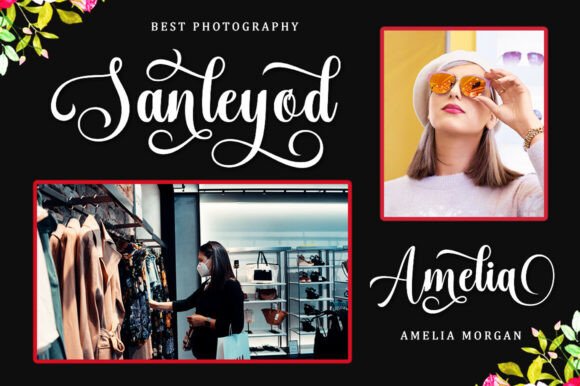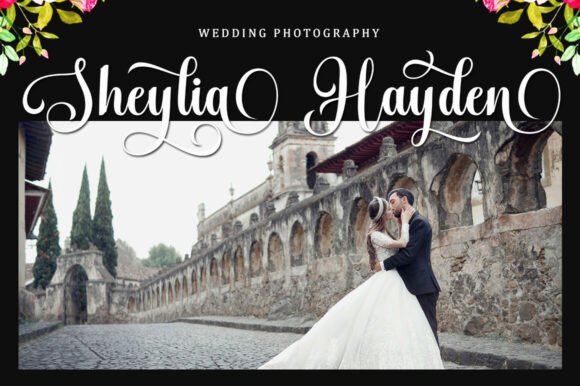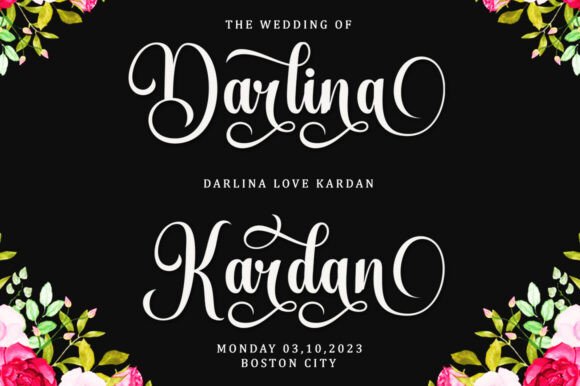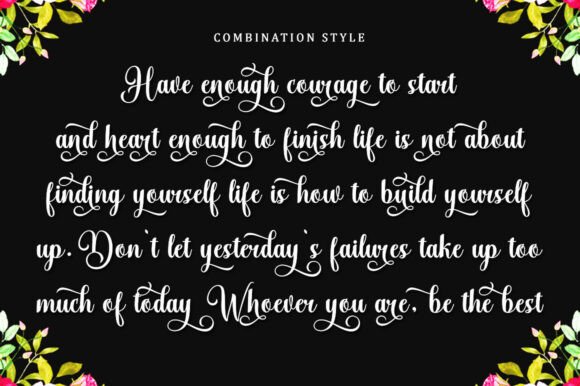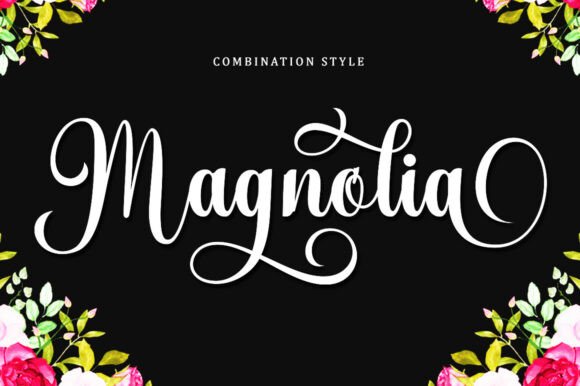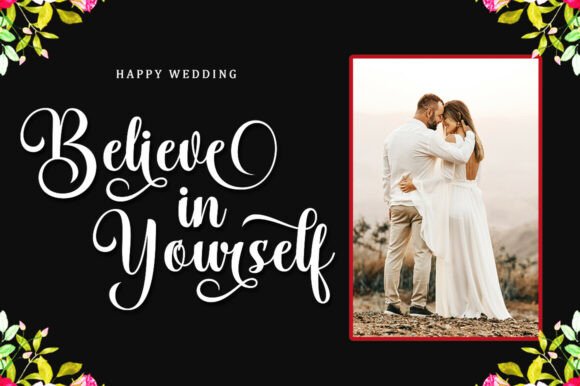
Discover the Timeless Elegance of Baileyda Font
Have you ever found yourself staring at a blank page, desperately searching for the perfect font to bring your design to life? That’s where the magic happens – when a single typeface can transport your project from ordinary to extraordinary. For designers, the quest for the perfect font is a never-ending journey, and we’re excited to introduce you to the latest addition that’s sure to captivate: Baileyda Font.
With its fluid, sweeping strokes and sophisticated flourishes, Baileyda Font is a stunning script calligraphy typeface that embodies the essence of classic hand-lettered artistry. Whether you’re designing for a high-end event or a boutique brand, this font provides a romantic and polished touch that commands attention. By incorporating Baileyda Font into your projects, you’ll add a touch of timeless elegance that will leave a lasting impression on your audience.
Baileyda Font Key Features
- Unique Characteristics: The Baileyda Font features a unique blend of modern and vintage elements, with intricate details and ornate flourishes.
Designer Review: Baileyda Font
When I first laid eyes on Baileyda Font, I was immediately drawn to its playful and whimsical aesthetic ✨. The font’s unique blend of modern and vintage elements makes it a standout choice for designers looking to add some personality to their projects. The Baileyda Font’s curves and flourishes evoke a sense of nostalgia, making it perfect for projects that require a touch of warmth and elegance.
One of the strengths of Baileyda Font is its versatility ✨. It can be used for a wide range of applications, from logos and branding to posters and advertisements. The font’s various weights and styles also make it easy to customize and adapt to different design needs.
However, there are a few limitations to consider ⚠️. For one, the font may not be the best choice for projects that require a clean and minimalist aesthetic. Additionally, some of the font’s characters may not render properly in certain environments, which can be frustrating for designers.
- Unique blend of modern and vintage elements
- Versatile and easy to customize
- Available in various weights and styles
- Perfect for projects that require a touch of warmth and elegance
- May not be suitable for minimalist designs
- Some characters may not render properly in certain environments
Overall, I would give Baileyda Font 4 out of 5 stars. While it has some limitations, its unique aesthetic and versatility make it a great choice for designers looking to add some personality to their projects.
Getting the Most Out of Baileyda Font
Here are some tips to get the most out of Baileyda font:
- Use it for titles and headings to add a touch of elegance.
- Pair it with other fonts to create a unique and interesting design.
Baileyda font is commonly used for:
Alternatives to Baileyda Font
Great Vibes is a modern calligraphy font perfect for creating a unique and elegant look. It’s ideal for use in invitations, wedding stationery, and other high-end designs where a touch of sophistication is needed. Compared to Baileyda Font, Great Vibes has a more fluid and organic feel, making it perfect for designs that require a hand-drawn look.
Carolyna Pro is a beautiful script font that’s great for creating a romantic and feminine look. It’s perfect for use in wedding designs, branding, and other projects where a touch of elegance is needed. Compared to Baileyda Font, Carolyna Pro has a more refined and polished look, making it ideal for high-end designs.
Playfair Display is an elegant and luxurious font perfect for creating a sophisticated look. It’s ideal for use in high-end branding, packaging, and other designs where a touch of opulence is needed. Compared to Baileyda Font, Playfair Display has a more dramatic and ornate feel, making it perfect for designs that require a sense of grandeur.